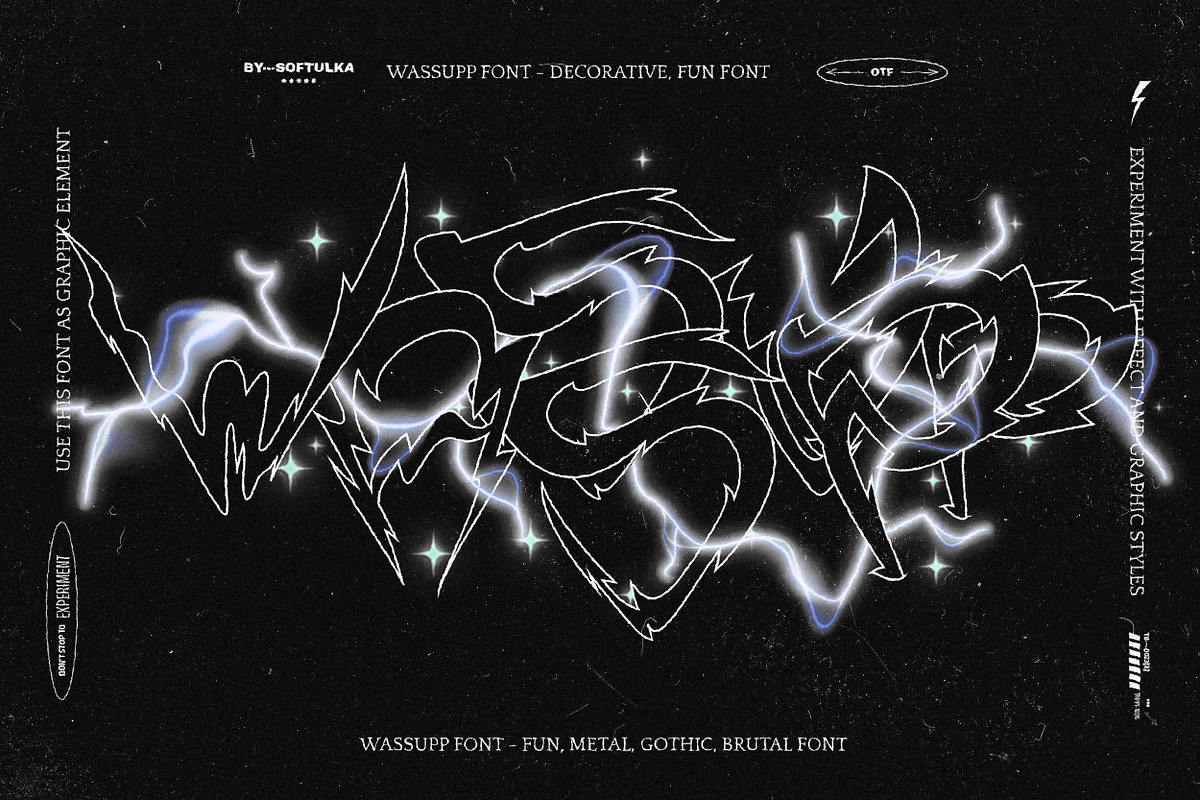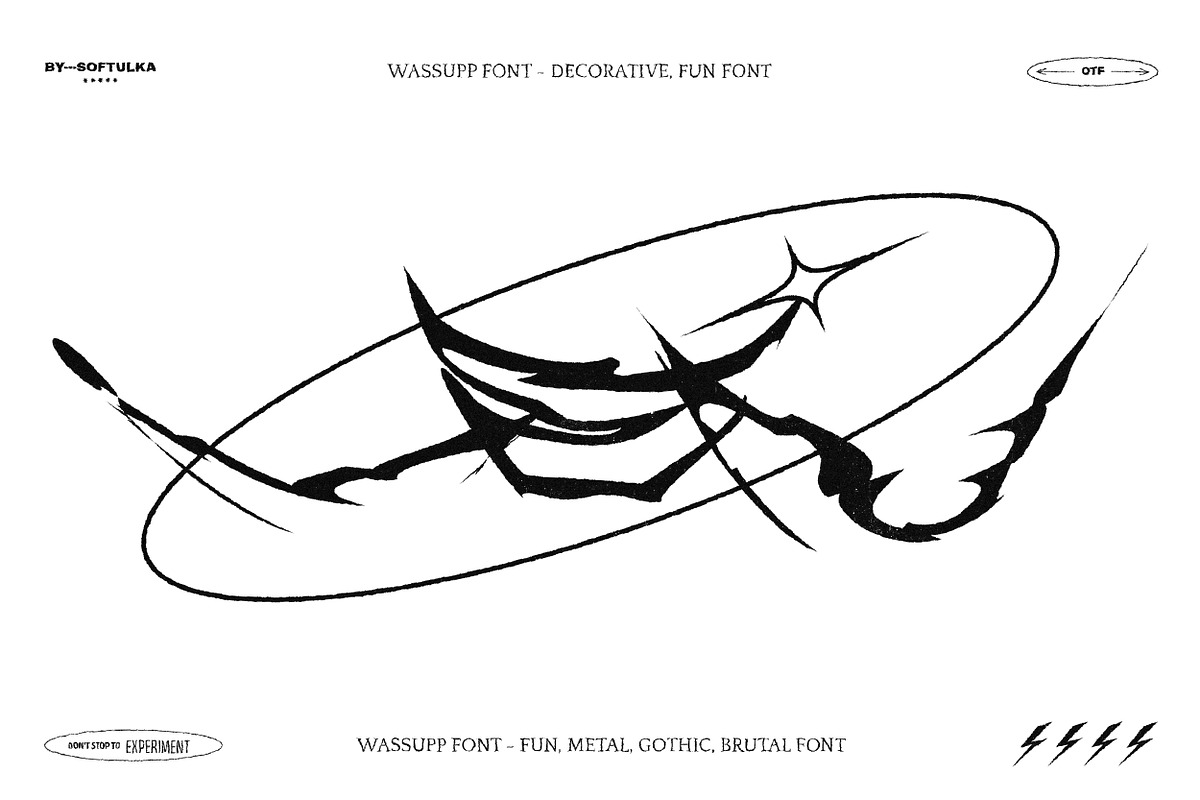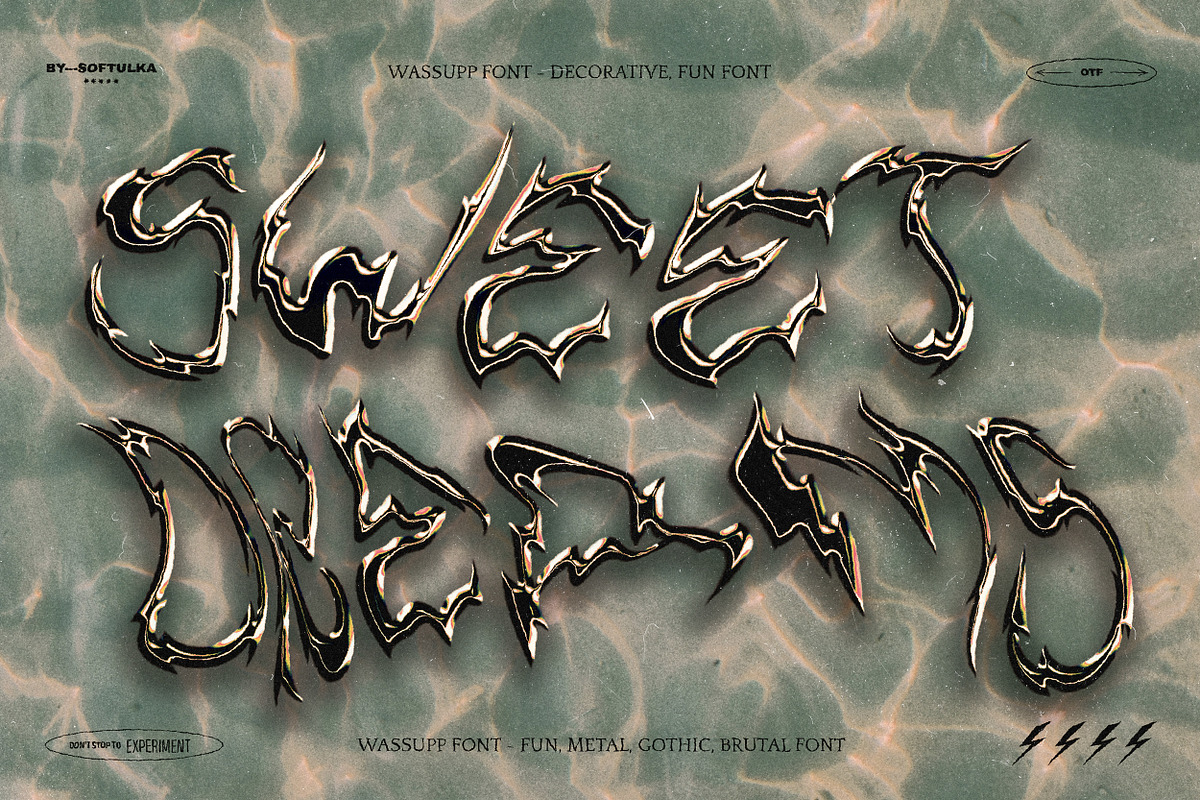
Wassupp font - Brutal Bold Font
Wassupp font - Brutal decorative Fun font with sharp ends like lightning. Works perfectly for bold Titles, Festival posters, as a graphic element for bright T-shirts, and hoodies, for the design of musical products, especially for alternative, heavy music, or even Backgrounds! This weird and ugly font likes an experiment with spacing and different deformation. Please, don't hold back on your bold modern ideas!